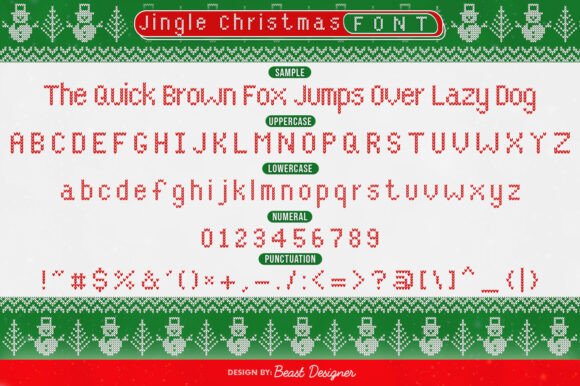
Getting Cozy with Holiday Design
It’s the most wonderful time of the year, and as designers, we know that the right typography can make all the difference in spreading holiday cheer. There’s nothing quite like the feeling of curling up with a warm cup of hot cocoa, surrounded by twinkling lights and the soft glow of a Christmas tree. And it’s precisely this cozy atmosphere that inspired the creation of Jingle Christmas Font – a charming knitted font that captures the essence of classic Christmas sweaters.
With its lovingly crafted texture of yarn stitches, the Jingle Christmas Font brings a touch of nostalgia and handmade magic to every design project. Whether you’re creating holiday cards, winter invitations, or festive branding, this font is the perfect way to add a warm and welcoming feel to your work. For designers, it’s a valuable tool that can help evoke the spirit of the season and make your designs stand out from the crowd.
Jingle Christmas Font Key Features
• Font Family: Jingle Christmas, a festive holiday font designed to evoke the spirit of Christmas.
• Font Size: 1,032 glyphs, providing a comprehensive set of characters for effective communication.
• Unique Characteristics: Features a playful, whimsical design with intricate details and ornaments, perfect for creating eye-catching holiday content.
Jingle Christmas Font Review
Overall, the Jingle Christmas Font is a delightful addition to any holiday-themed project. I found it to be ✨ fun, festive, and full of character ✨.
• Unique and playful style, perfect for holiday projects
• Includes a range of characters, including punctuation and numbers
• Good for use in headings and titles
Limitsations:
• May be too bold and over-the-top for more subdued holiday designs ⚠️
• Lack of flexibility in terms of font sizes and weights
• Not ideal for use in large blocks of text
In terms of overall impression, the Jingle Christmas Font is a great choice for projects that need a bit of whimsy and personality. While it may not be suitable for every holiday design, it’s a great option for those looking to add a bit of festive flair. With a little restraint, the Jingle Christmas Font can add a lot of visual interest to your project.
Tips for Getting the Most Out of Jingle Christmas Font
Use Jingle Christmas Font to add a festive touch to your holiday designs.
Combine it with other winter-themed elements, such as snowflakes, holly, or Christmas trees.